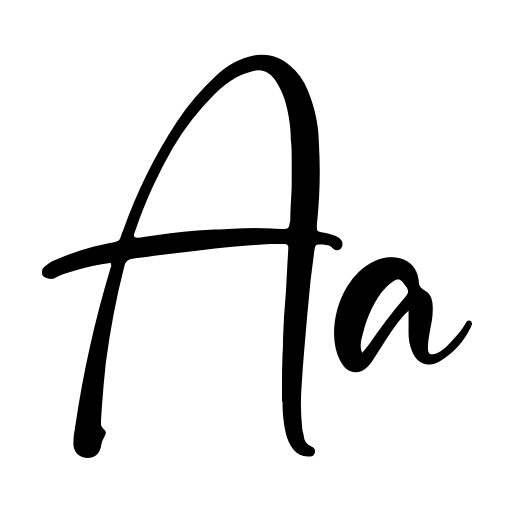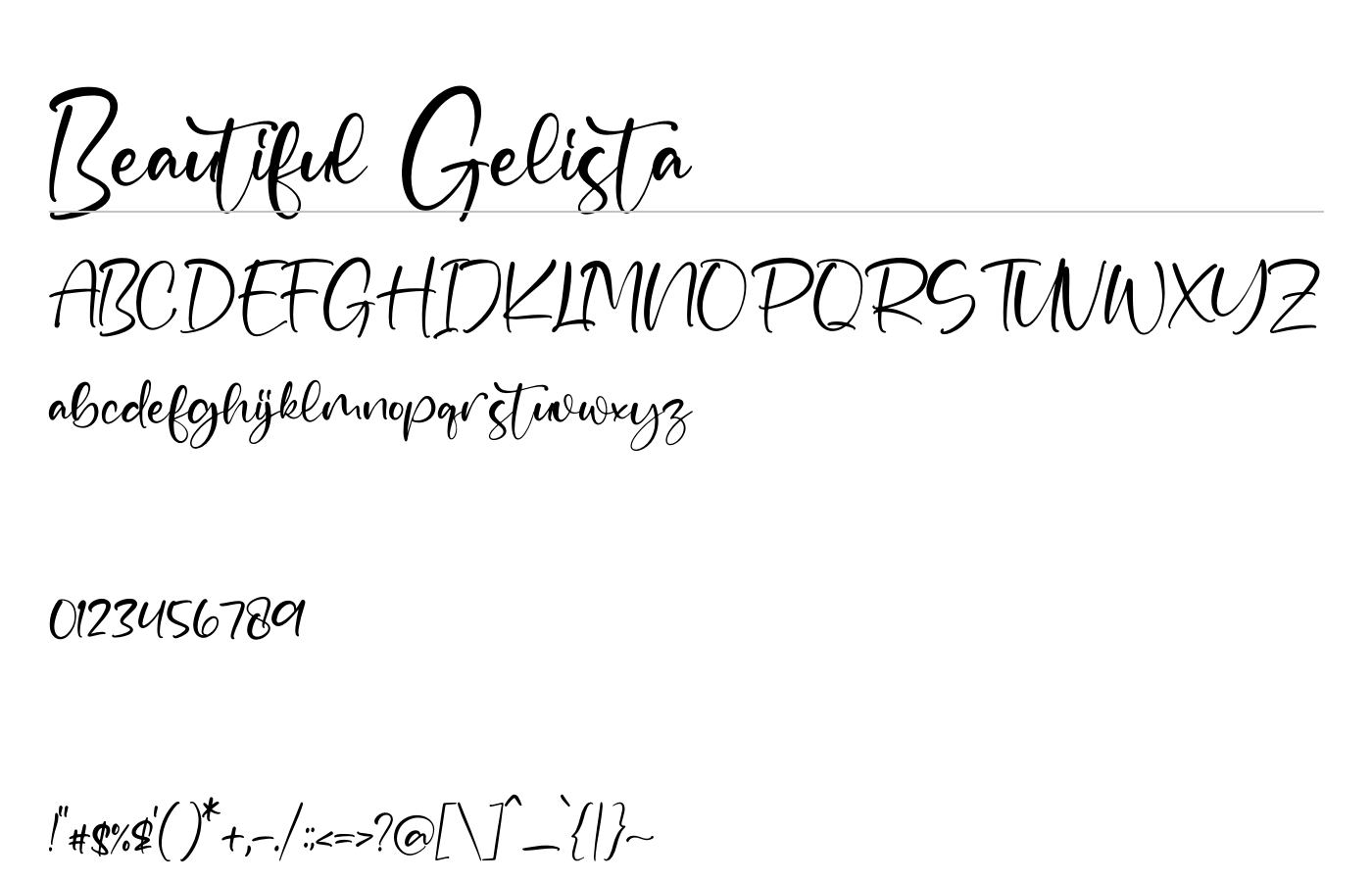
Beautiful Gelista is a lively and elegant script font with a handwritten feel, featuring fluid and slightly whimsical strokes that add a personal, creative touch. Its light to medium weight and airy letterforms make it perfect for invitations, branding, and any design needing a friendly yet sophisticated flair. This font works especially well in logos, social media graphics, and packaging where a stylish, approachable, and modern script vibe is desired.
Beautiful Gelista Font
About Beautiful Gelista Font